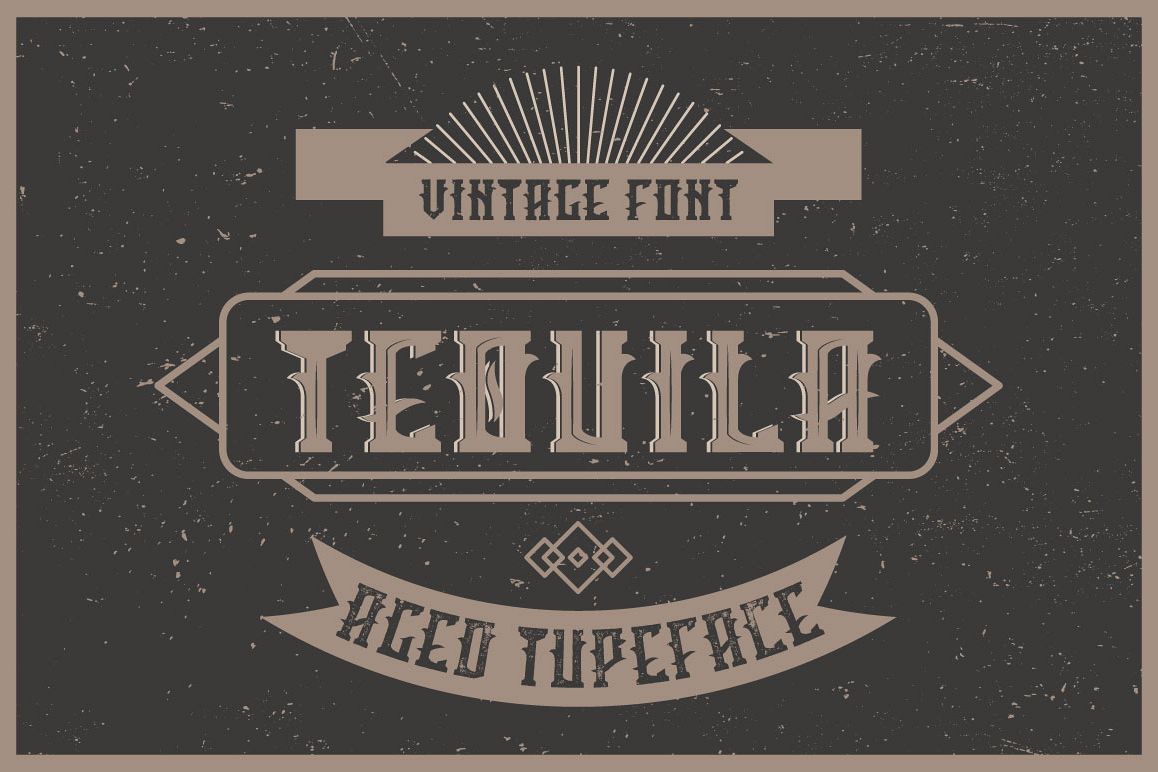
Tequila label font
Tequila aged
Tequila Sh FX
Tequila Sh_Lt
Tequila Lt FX
Tequila base
Introduce a vintage look label typeface named "Tequila". It's made in a strong and vintage label style. Typeface is good looking on any labels design.
• 5 fonts in complect with special effects
• You can mix shadow effect as shown at 5th screenshot